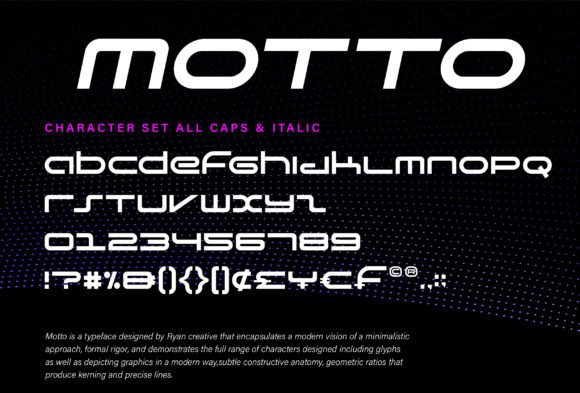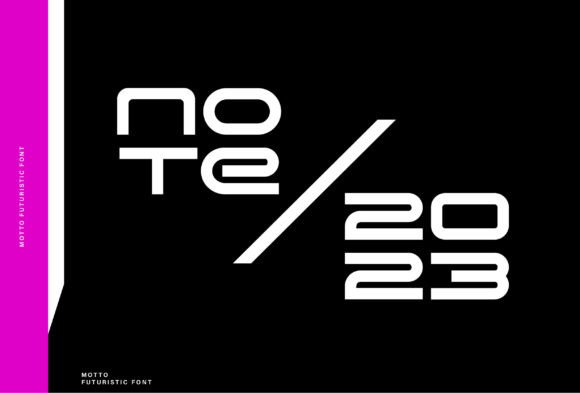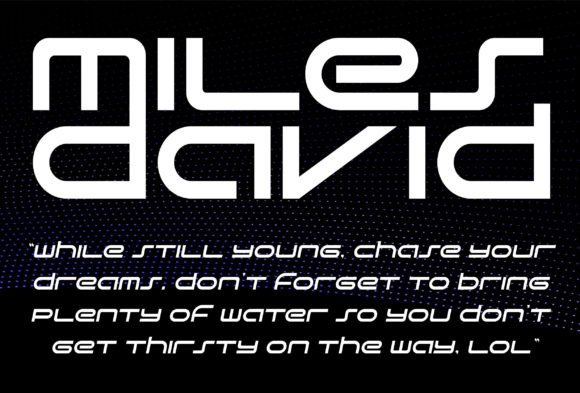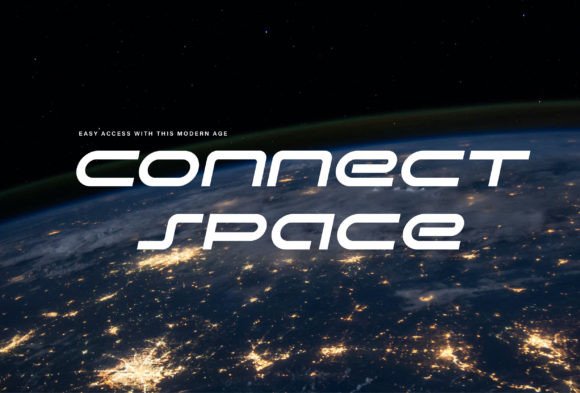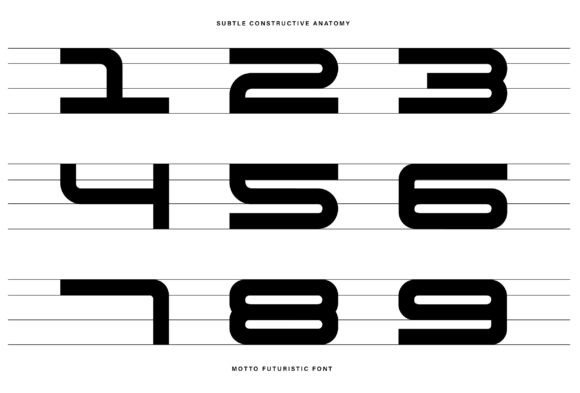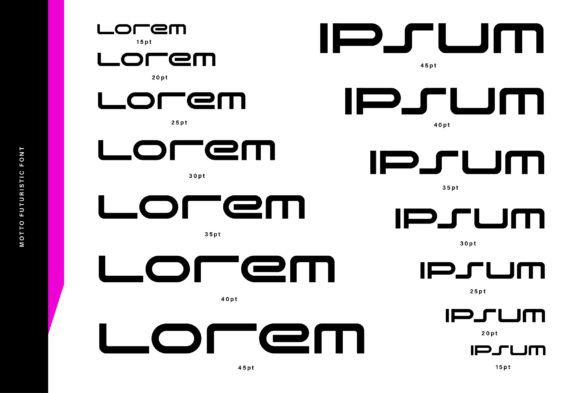
Introduction to Motto Font
Imagine you’re working on a creative project and you’re stuck on finding the perfect typography. You browse through various design resources, but nothing seems to fit your modern minimalist vision. That’s where Motto Font comes in – a game-changing typography that’s about to revolutionize your design process. With its sleek and formal design, Motto Font is the perfect addition to any high-quality design project.
What sets Motto Font apart is its unique blend of modernity and precision. Its subtle constructive anatomy and geometric ratios produce kerning and precision lines that are simply stunning. Whether you’re working on a logo, a website, or a marketing campaign, Motto Font is the perfect design resource to take your project to the next level. And the best part? You can download it for free, making it an accessible and valuable asset for designers of all levels.
From a transparent background to its versatile range of glyphs, Motto Font is a valuable addition to any designer’s toolkit. Its modern aesthetic and high-quality design make it an ideal choice for creative projects that demand sophistication and style. So why settle for anything less when you can elevate your design with the power of Motto Font?
Key Features of Motto Font
- High-quality design: Motto Font offers a premium look and feel, making it suitable for creative projects that require a professional touch.
- Transparent background: This feature allows for seamless integration with any design element, giving users the flexibility to create visually appealing compositions.
- High-resolution design: Motto Font is designed at 300 DPI (dots per inch), guaranteeing crisp and clear text even at large sizes.
- Unique characteristics: Motto Font features a modern and elegant design, with subtle nuances that set it apart from other fonts in its class.
- Perfect for creative projects: With its high-quality design and transparent background, Motto Font is ideal for use in logos, branding materials, and other design elements that require a touch of sophistication.
Honest Review: Motto Font
Motto Font is a high-quality design resource that I’ve had the pleasure of working with. As a designer, I’m always on the lookout for reliable fonts to add a professional touch to my creative projects. In this review, I’ll share my honest thoughts on what works well and what doesn’t.
- The font is highly versatile, suitable for a wide range of creative projects, from logos to typography-based designs.
- The transparent background feature is a bonus, allowing for seamless integration with various design elements.
- The font library is limited, with only a few styles and weights available.
- The font may not be suitable for high-impact, attention-grabbing designs, as it’s relatively subtle.
Overall, I’m impressed with Motto Font’s quality and versatility. While it may have some limitations, it’s a great addition to any designer’s toolkit. I’d definitely recommend it for creative projects that require a professional, yet understated touch.
In PowerPoint and Word, you can use the Motto Font to add a professional touch to your presentations and documents. With its clean and modern design, this font is perfect for corporate and business projects.
The Motto Font is perfect for a variety of creative projects, including branding, marketing materials, and business documents. Its high-quality design and transparent background make it an excellent choice for designers and non-designers alike.